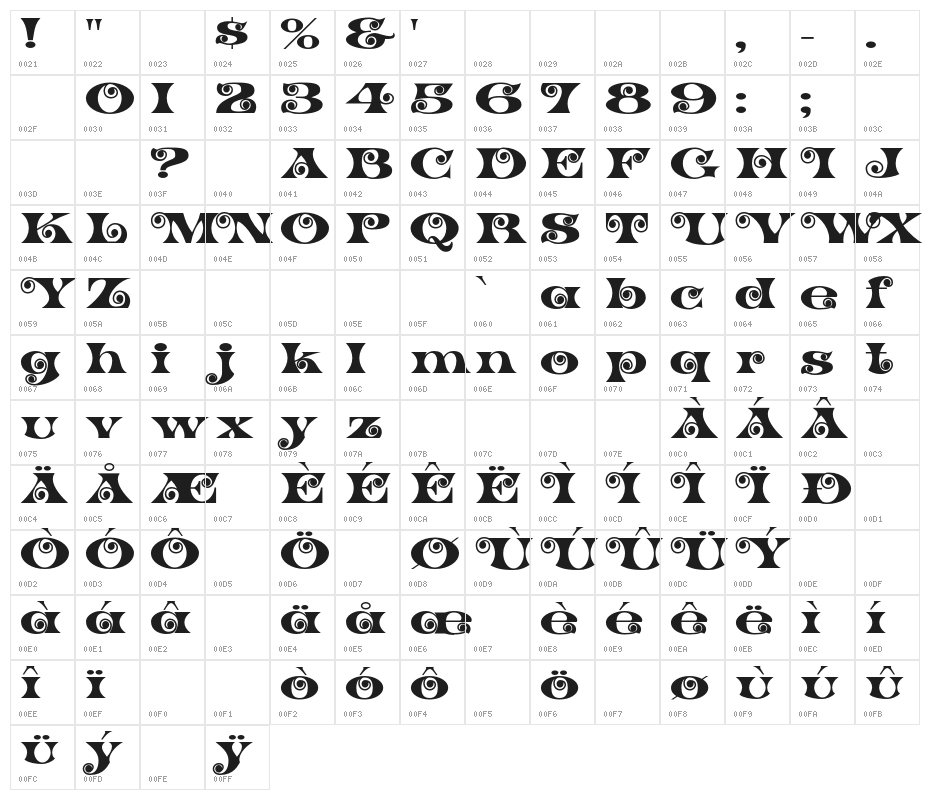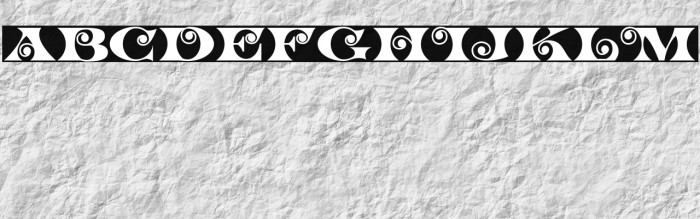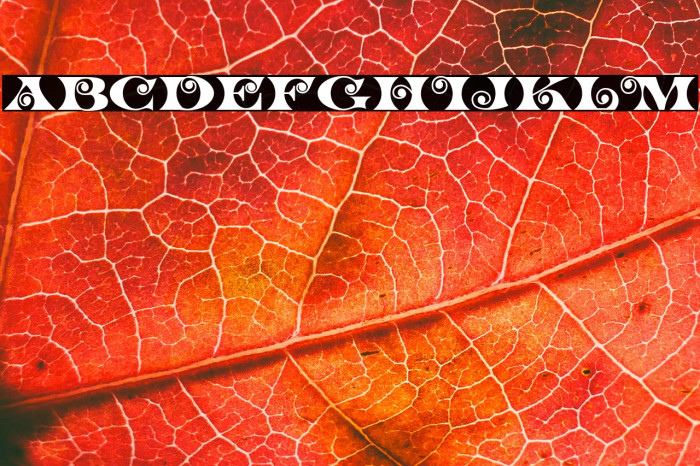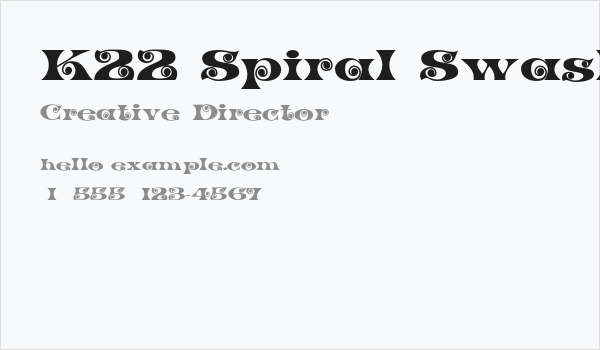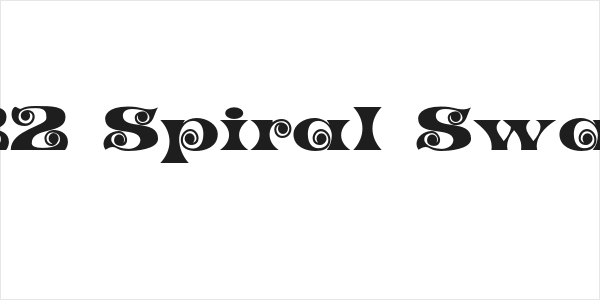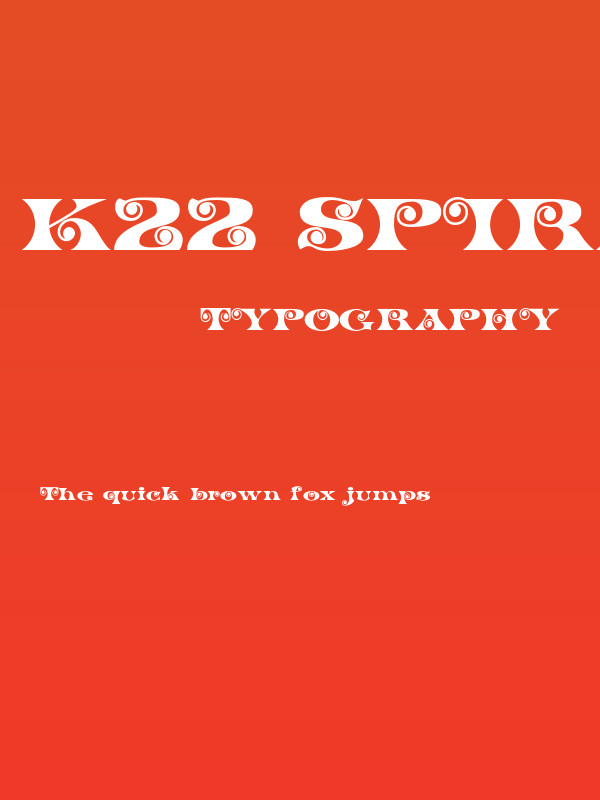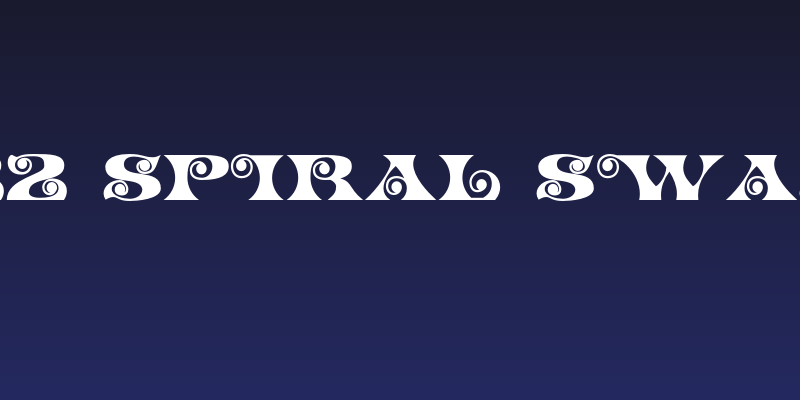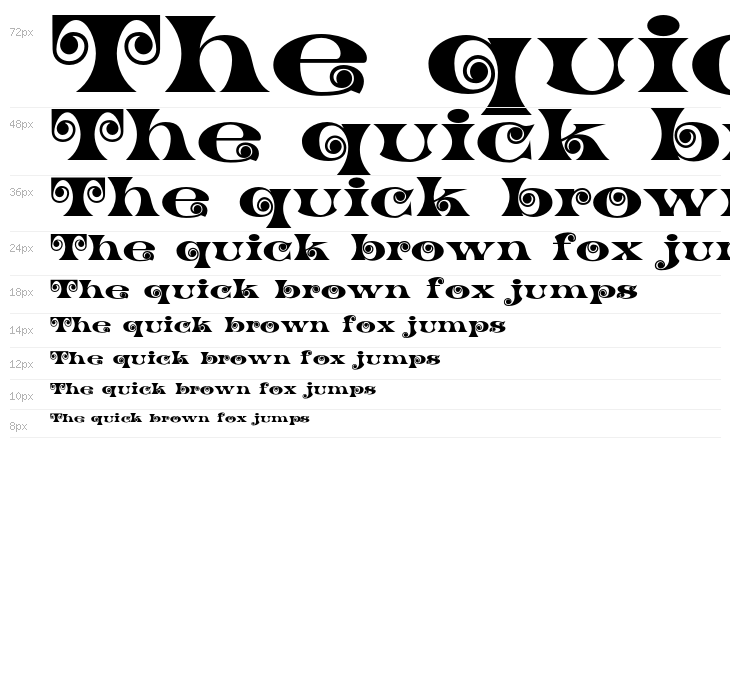
K22 Spiral Swash Font
K22 Spiral Swash Description
This font features a unique and decorative style with intricate spiral swashes integrated into each character. The uppercase and lowercase letters exhibit a bold presence, with the spirals adding a whimsical and artistic flair. The numbers and special characters maintain this decorative theme, ensuring a cohesive look across all glyphs. The font's bold strokes and high contrast make it stand out, ideal for eye-catching designs. Its playful yet elegant appearance makes it suitable for creative projects that require a touch of sophistication and uniqueness.
| Proposed Projects | Ideal for invitations, posters, branding, and any project requiring a decorative and artistic touch. |